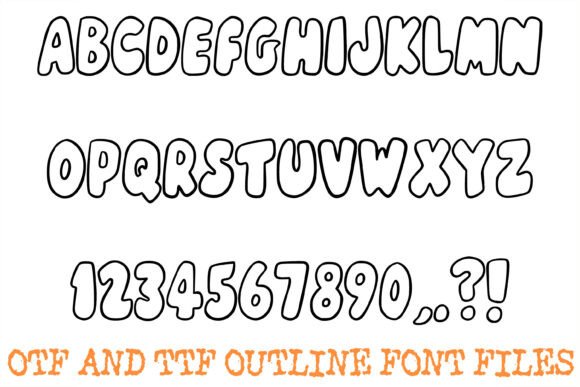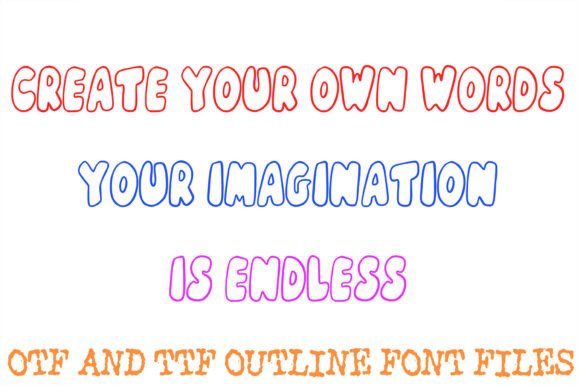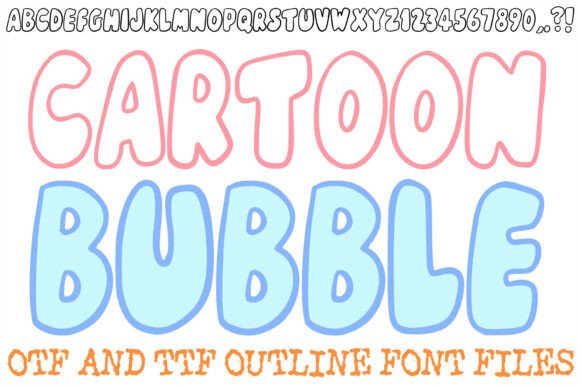
Introducing the Cartoon Bubble Font: A Playful and High-Energy Display Typeface
Are you looking for a font that can add a touch of playfulness and joy to your creative projects? Look no further than the Cartoon Bubble Font! This delightful display typeface is designed to bring a sense of airy joy to your designs, making it perfect for a wide range of applications, from nursery wall art to social media headers.
A Font that’s Full of Personality
The Cartoon Bubble Font is a meticulously hand-drawn typeface that boasts a unique, artisan-crafted feel. Each character is carefully designed to maintain a consistent “balloon” weight, giving the font a lighthearted and airy feel that’s sure to capture the attention of your audience. The high-contrast white centers and bold black outlines ensure that your text remains readable and high-impact, whether you’re designing for print or digital.
The Cartoon Bubble Font is an incredibly versatile typeface that can be used in a variety of creative projects. Here are just a few ideas to get you started:
- Playful Nursery Wall Art: Add a touch of whimsy to nursery walls with custom wall art featuring the Cartoon Bubble Font. This font is perfect for creating personalized and engaging wall decor that will delight little ones.
- Friend Boutique Branding: Give your boutique a friendly and approachable feel with the Cartoon Bubble Font. This font is ideal for creating custom signage, packaging, and marketing materials that reflect your brand’s playful personality.
- Custom Stickers: Create custom stickers that are sure to bring a smile to people’s faces. The Cartoon Bubble Font is perfect for designing stickers that are fun, playful, and eye-catching.
- Vibrant Social Media Headers: Add a pop of personality to your social media headers with the Cartoon Bubble Font. This font is sure to make your profiles stand out and leave a lasting impression on your followers.
- Personalized T-Shirts: Create custom t-shirts that are fun, playful, and unique. The Cartoon Bubble Font is perfect for designing personalized tees that make a statement.
- Whimsical Classroom Materials: Add a touch of playfulness to your classroom materials with the Cartoon Bubble Font. This font is ideal for creating engaging and interactive learning materials that will delight students of all ages.
Key Features of the Cartoon Bubble Font
The Cartoon Bubble Font has a number of key features that make it an ideal choice for designers and crafters. Here are just a few of the highlights:
- Hand-Drawn Design: Each character in the Cartoon Bubble Font is meticulously hand-drawn to ensure a unique and artisan-crafted feel.
- Consistent “Balloon” Weight: The font features a consistent “balloon” weight that gives it a lighthearted and airy feel.
- High-Contrast White Centers: The high-contrast white centers and bold black outlines ensure that your text remains readable and high-impact.
- Printable and Digital Friendly: The Cartoon Bubble Font is designed to work beautifully in both print and digital applications.
Why Choose the Cartoon Bubble Font?
There are many fonts to choose from, but the Cartoon Bubble Font stands out for its unique combination of playfulness, personality, and versatility. Here are just a few reasons why you might choose this font for your next project:
- Unique and Eye-Catching: The Cartoon Bubble Font is a one-of-a-kind typeface that’s sure to grab attention and leave a lasting impression.
- Approachable and Friendly: This font has a friendly and approachable feel that’s perfect for creating designs that are welcoming and engaging.
- Versatile: The Cartoon Bubble Font can be used in a wide range of applications, from nursery wall art to social media headers.
The Cartoon Bubble Font is a playful and high-energy display typeface that’s perfect for designers and crafters who want to add a touch of joy and personality to their creative projects. With its unique, hand-drawn design and versatile range of applications, this font is sure to become a favorite in your design arsenal. So why wait? Download the Cartoon Bubble Font today and start creating fun, playful, and engaging designs that will delight audiences of all ages!